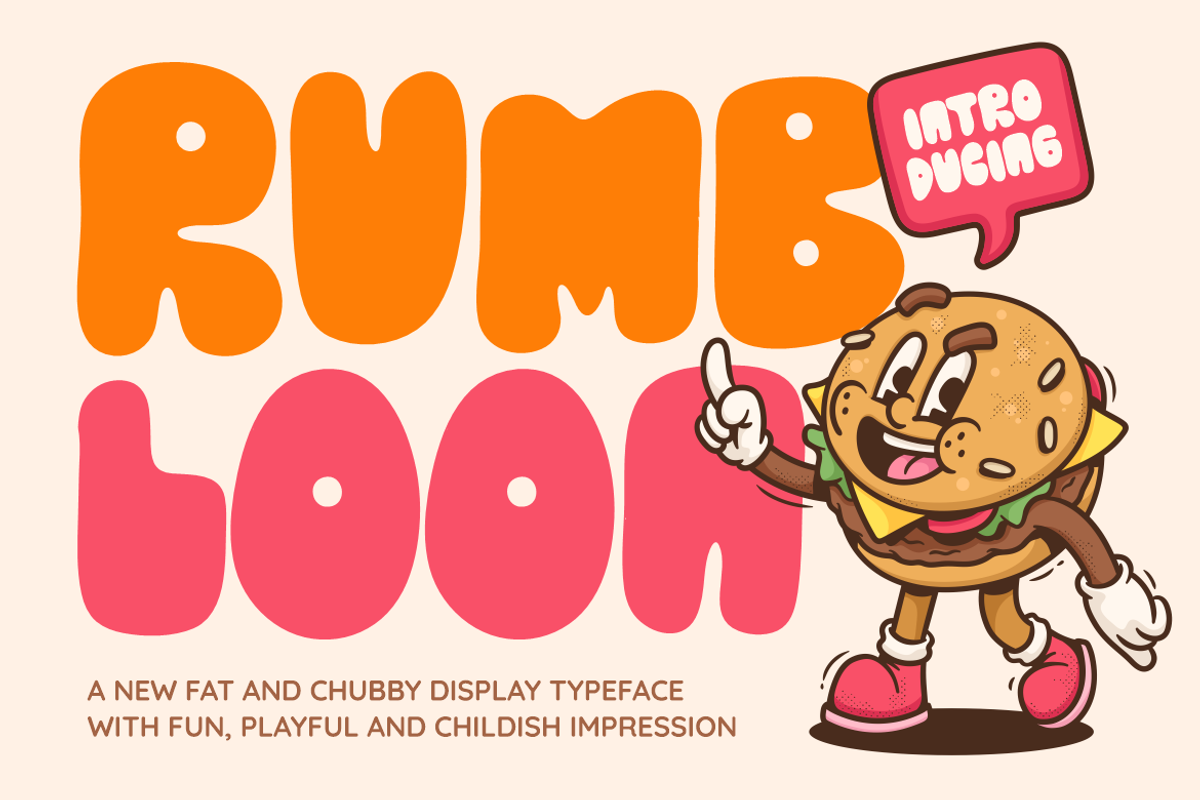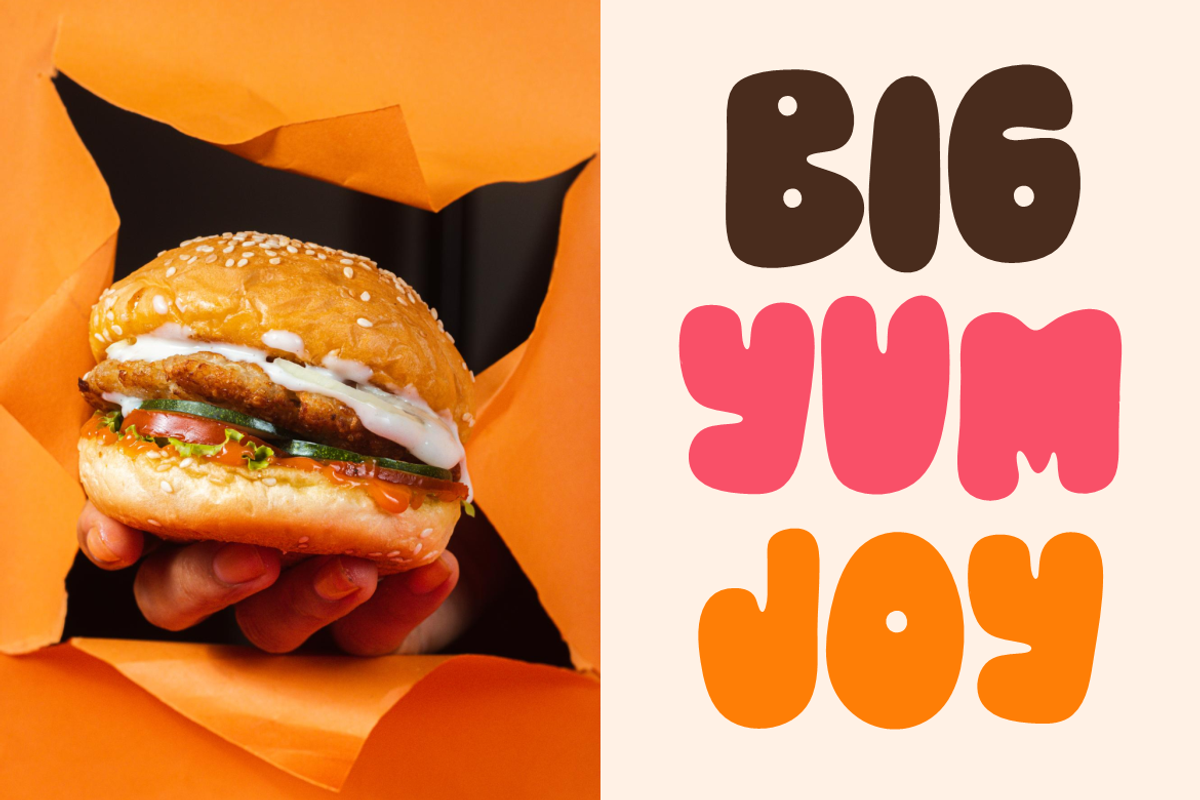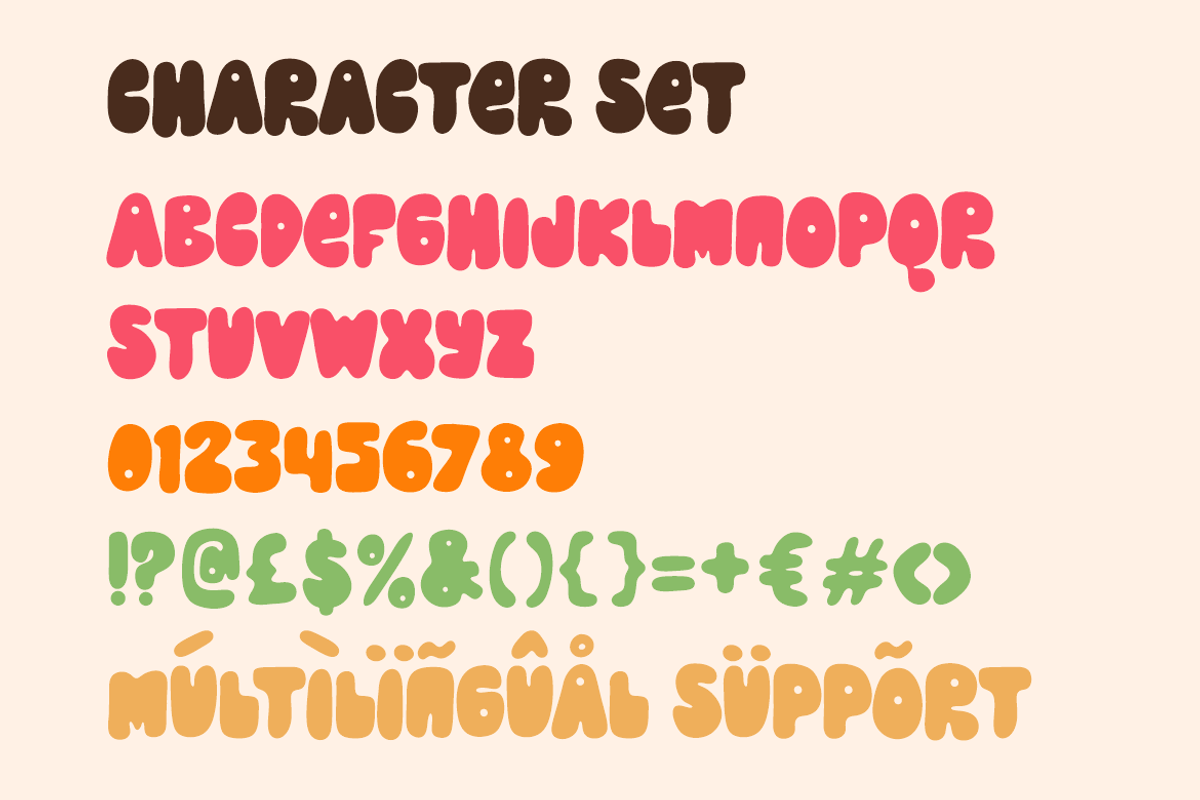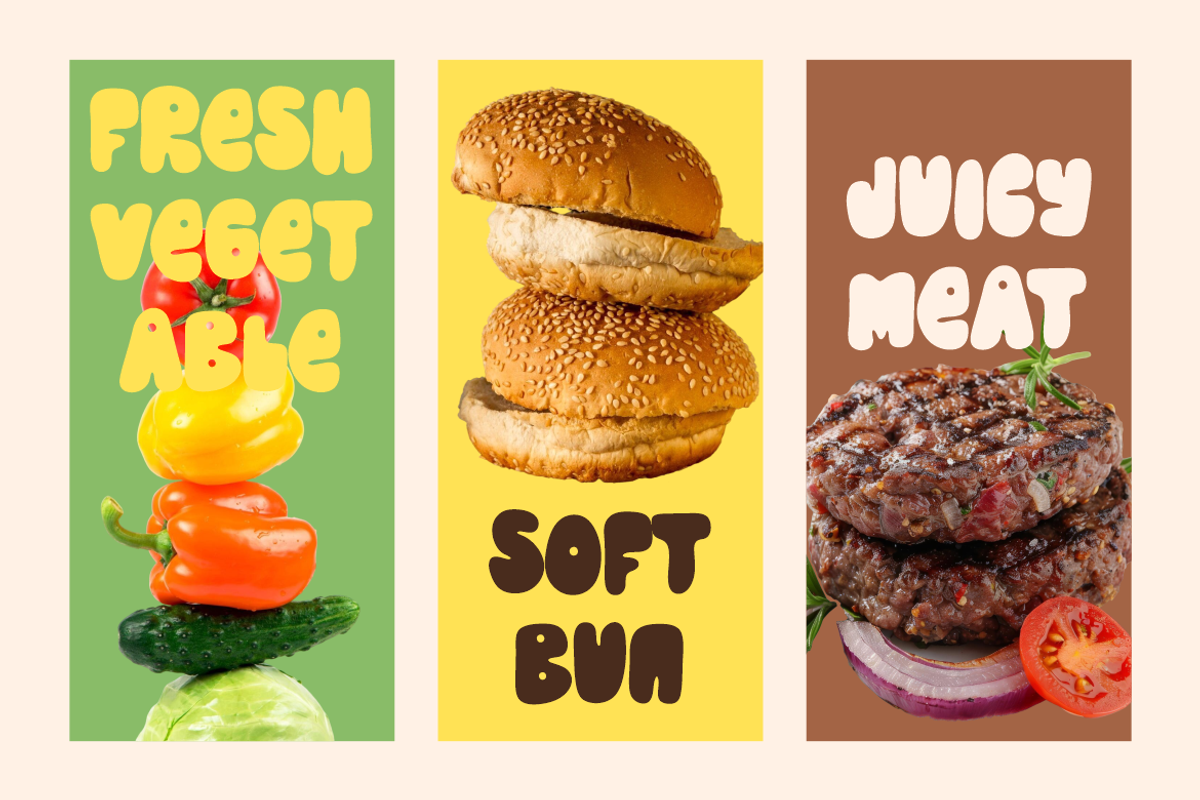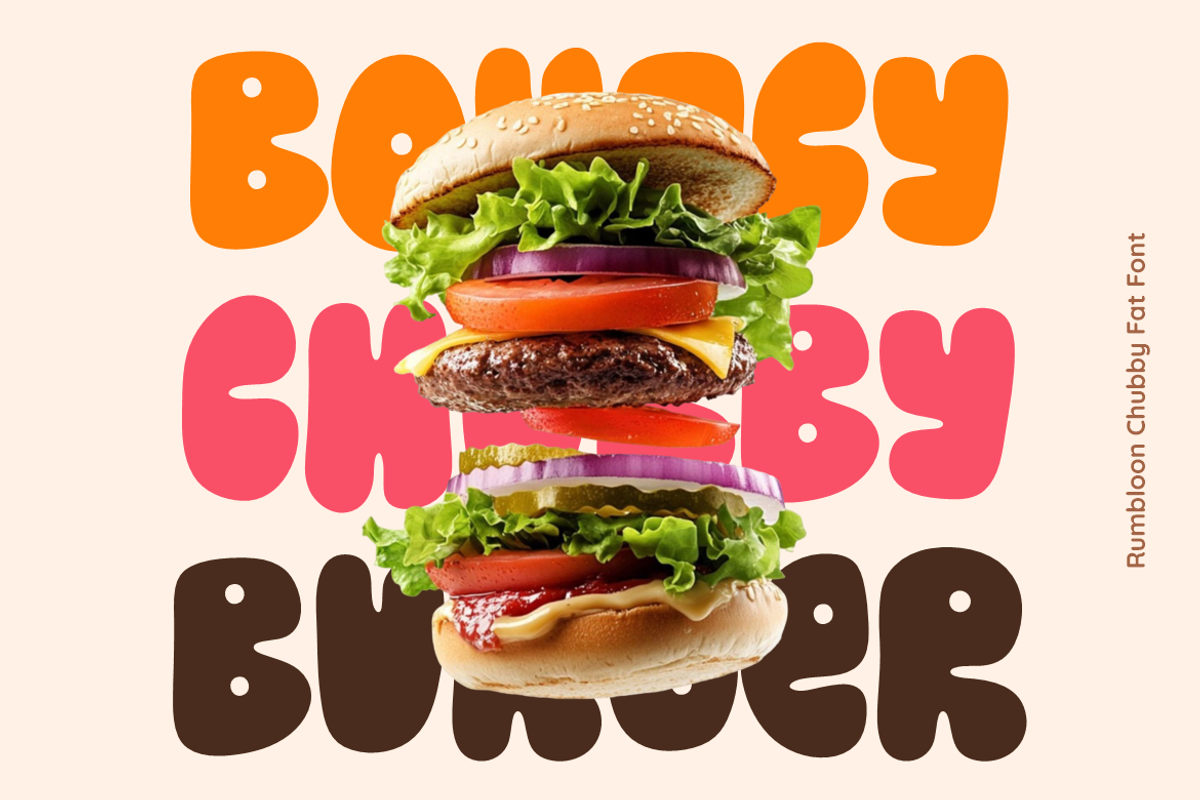
Rumbloon Chubby Fat Font
Rumbloon Chubby Fat Font is a bold and bubbly typeface designed to bring instant fun and character to your projects. With its oversized curves and chubby proportions, this font radiates a playful energy that instantly captures attention. The rounded edges and smooth flow of each letter create a friendly and approachable vibe, making it an ideal choice for children’s themes, food branding, or any design that seeks to evoke joy. Rumbloon Chubby Fat Font was carefully crafted with a balanced layout, ensuring strong readability even with its chunky style. The exaggerated forms give every word a lively rhythm that feels energetic, vibrant, and modern.
Perfect for logos, packaging, posters, and creative branding, this font works across both digital and print platforms. The bold personality makes it a standout option for advertisements, event promotions, or social media graphics where visibility and impact matter most. Its unique chubby style also makes it great for stickers, greeting cards, or playful magazine covers. Whether you’re designing for a food business, crafting project, or a children’s product, Rumbloon Chubby Fat Font will elevate your design with fun, bold character. Let this fat and friendly font bring your headlines and visuals to life in the most eye-catching way.